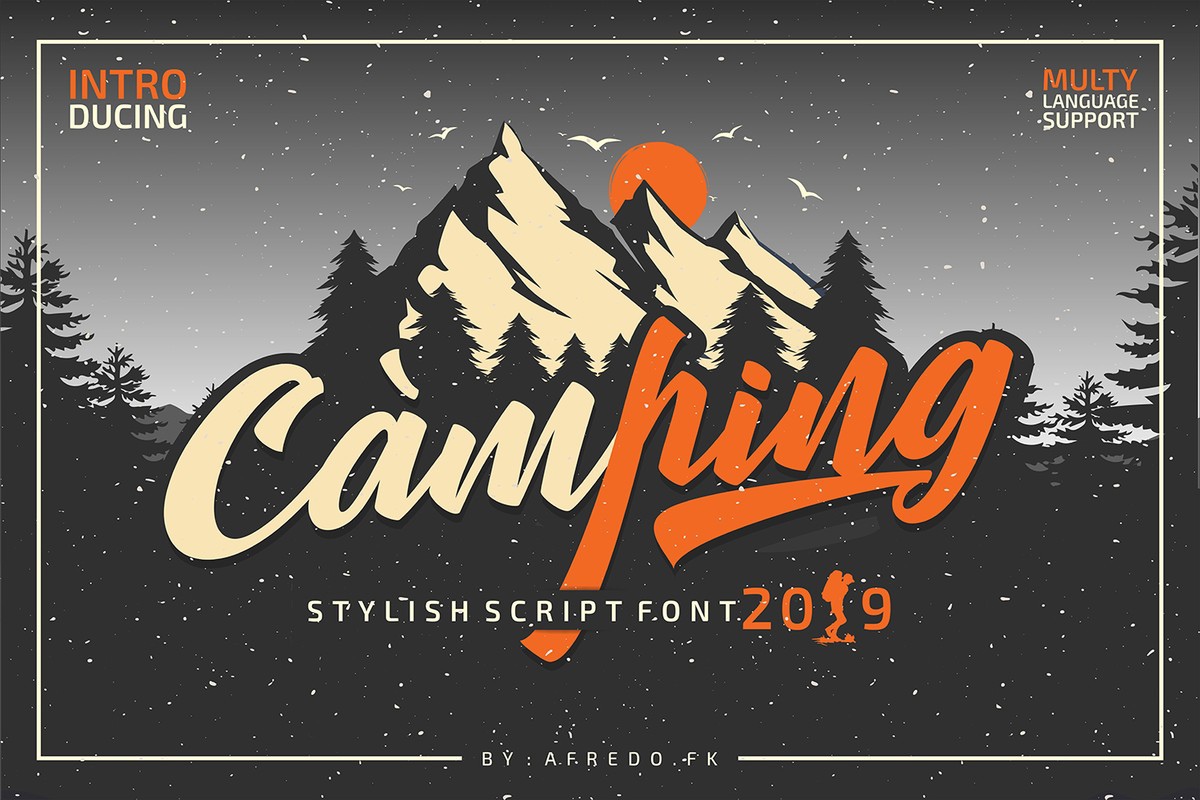
Camping Font
Camping Font is perfect for outdoor gear branding, national park signage, camping equipment packaging, adventure travel brochures, wilderness lodge logos, hiking trail markers, outdoor education materials, scout organization graphics, campground advertising, and nature conservation campaigns.
What makes Camping Font so exciting is its remarkable ability to capture the authentic spirit of outdoor adventure and wilderness exploration through letterforms that seem seasoned by campfire smoke and weathered by mountain trails. This rugged typeface embodies the essence of outdoor living and camping culture with characters that radiate the independence, resilience, and natural connection that define genuine outdoor enthusiasts. The font's outdoor design elements perfectly balance rustic authenticity with practical readability, creating an indispensable tool that communicates outdoor expertise, adventure reliability, and wilderness authenticity, making it essential for brands and organizations that serve the camping community and celebrate the transformative power of outdoor experiences.
Camping Font comes in multiple font families including Regular, Bold, Light, Rustic, Weathered, Condensed, Extended, and Adventure variations. Each family member maintains the core outdoor characteristics while offering different ruggedness levels and stylistic approaches to suit various camping and outdoor design requirements.
The wilderness authenticity in Camping Font makes it particularly effective for outdoor recreation companies and camping organizations where conveying genuine outdoor experience and wilderness credibility is crucial for building trust with serious campers and outdoor adventurers. Its rugged letterforms work exceptionally well across all outdoor applications, from camping equipment labels to trail signage, maintaining consistent outdoor appeal and adventure authenticity.
Outdoor marketing professionals recognize how Camping Font transforms ordinary promotional materials into compelling invitations to wilderness adventure and authentic camping experiences. The typeface's outdoor character set includes special camping symbols, wilderness elements, and adventure indicators that enhance the overall camping atmosphere of any outdoor-focused project.
For creative professionals serving outdoor recreation, camping industry, and wilderness education organizations, Camping Font serves as the perfect foundation for establishing memorable visual identities that capture the essential qualities of outdoor expertise, camping authenticity, and wilderness connection that define successful brands serving the camping community and inspiring others to discover the freedom and renewal found in authentic outdoor adventures.